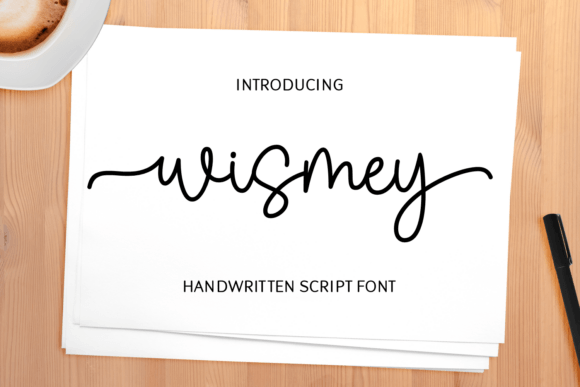
Wismey Font: Elevate Your Designs with a Stylish Handwritten Script
Wismey Font is a beautiful, stylish handwritten script font that can add a creative touch to your designs. With its smooth, flowing curves, Wismey has a personal and friendly feel that makes it perfect for a wide range of applications. In this article, we’ll take a closer look at the Wismey Font, its features, and how you can use it to elevate your designs.
What is Wismey Font?
Wismey Font is a handwritten script font that is designed to be elegant, yet easy to read. It features smooth, flowing curves that give it a personal and friendly feel. The letters are carefully crafted to be stylish and sophisticated, making it perfect for adding a touch of creativity to your designs.
Key Features of Wismey Font
- Smooth, flowing curves: Wismey Font features smooth, flowing curves that give it a personal and friendly feel.
- Elegant yet easy to read: The letters are elegant and stylish, yet easy to read, making it perfect for a wide range of applications.
- Handwritten script font: Wismey Font is a handwritten script font that adds a creative touch to your designs.
- Perfect for invitations and quotes: Wismey Font is great for invitations, quotes, and more, making it a versatile font for any designer.
How to Use Wismey Font in Your Designs
Wismey Font is a versatile font that can be used in a wide range of applications. Here are a few ideas for how you can use Wismey Font in your designs:
- Invitations: Wismey Font is perfect for invitations, such as wedding invitations, birthday invitations, and more.
- Quotes: Wismey Font is great for quotes, such as inspirational quotes, motivational quotes, and more.
- Logos: Wismey Font can be used to create a unique and stylish logo for your business or brand.
- Social media graphics: Wismey Font can be used to create eye-catching social media graphics, such as Facebook posts, Instagram posts, and more.
Benefits of Using Wismey Font
There are many benefits to using Wismey Font in your designs. Here are a few:
- Adds a creative touch: Wismey Font adds a creative touch to your designs, making them stand out from the crowd.
- Elegant and sophisticated: Wismey Font is elegant and sophisticated, making it perfect for professional designs.
- Easy to read: Wismey Font is easy to read, making it perfect for designs that require a lot of text.
- Versatile: Wismey Font is versatile and can be used in a wide range of applications.
Tips for Using Wismey Font
Here are a few tips for using Wismey Font in your designs:
- Use it sparingly: Wismey Font is a decorative font, so it’s best to use it sparingly to avoid overwhelming your design.
- Pair it with a sans-serif font: Wismey Font pairs well with sans-serif fonts, such as Arial or Helvetica.
- Experiment with different colors: Wismey Font looks great in a variety of colors, so don’t be afraid to experiment.
- Use it for headings: Wismey Font is perfect for headings and titles, making it a great choice for designs that require a lot of text.
Wismey Font vs. Other Fonts
Wismey Font is a unique and stylish font that stands out from other fonts. Here’s how it compares to other fonts:
- Wismey Font vs. Scriptina: Wismey Font has a more elegant and sophisticated feel than Scriptina.
- Wismey Font vs. Lobster: Wismey Font has a more personal and friendly feel than Lobster.
- Wismey Font vs. Pacifico: Wismey Font has a more stylish and elegant feel than Pacifico.
Wismey Font is a beautiful, stylish handwritten script font that can add a creative touch to your designs. With its smooth, flowing curves and elegant yet easy-to-read letters, Wismey Font is perfect for a wide range of applications. Whether you’re designing invitations, quotes, logos, or social media graphics, Wismey Font is a great choice.
- What is Wismey Font? Wismey Font is a handwritten script font that features smooth, flowing curves and elegant yet easy-to-read letters.